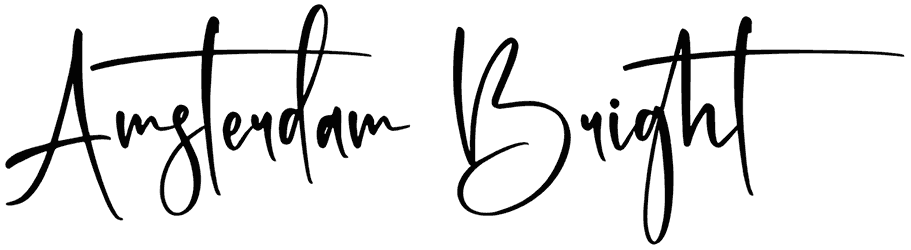
Amsterdam Bright Font
Continuous letters and inherent illegibility are the features that make Amsterdam Bright more attractive and give you enough reasons to implement your next project using it.
This handwritten font is a gorgeous cover for personal texts that need a sincere and human feel and should be presented in a beautiful format. Although you can use this script font for invitations, brochures, and book covers, its strength is in packaging and love letters that radiate a warm and trustworthy feeling.